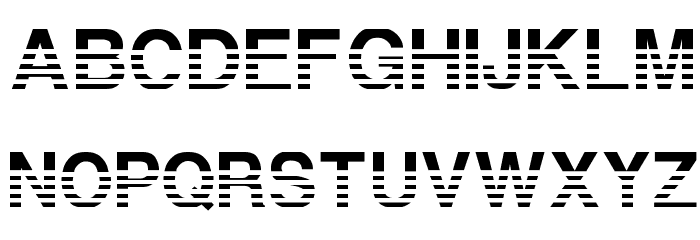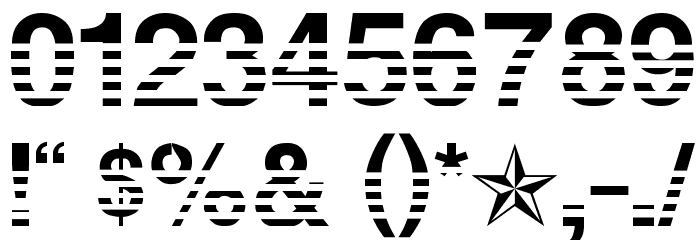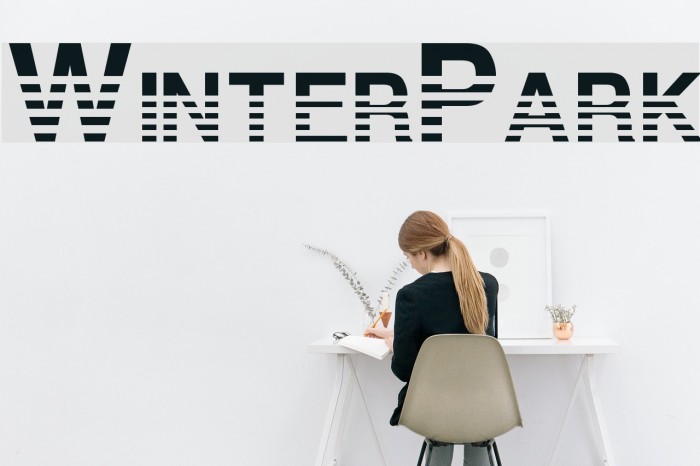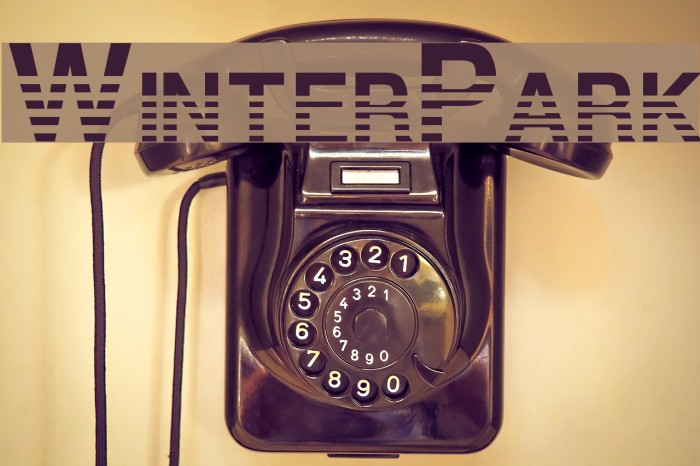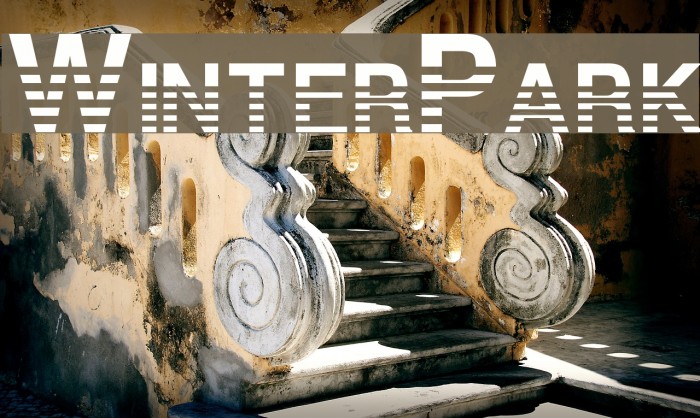
WinterPark Font
This font features a unique striped pattern within each character, creating a visually striking and modern appearance. The uppercase and lowercase letters, along with numbers and special characters, maintain a consistent design, emphasizing horizontal lines that break up the solid form of each glyph. This design choice gives the font a dynamic and energetic feel, making it stand out in any application. The boldness of the characters ensures readability while the striped effect adds a layer of complexity and interest. This font is ideal for projects that require a contemporary and eye-catching aesthetic.
A bold, striped font with a modern and dynamic appearance.
- Proposed Projects: Ideal for branding, advertising, posters, and any design needing a modern and eye-catching look.